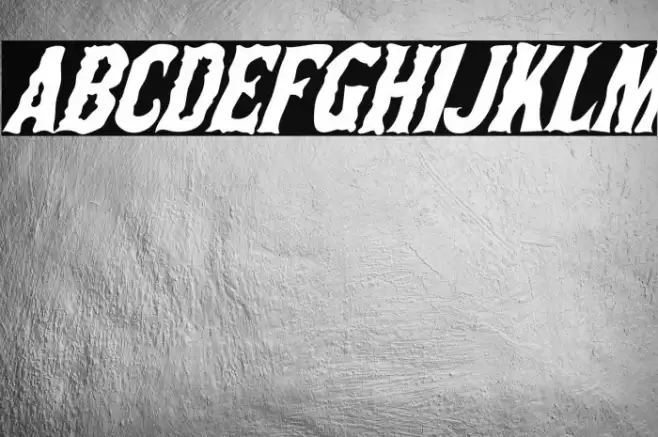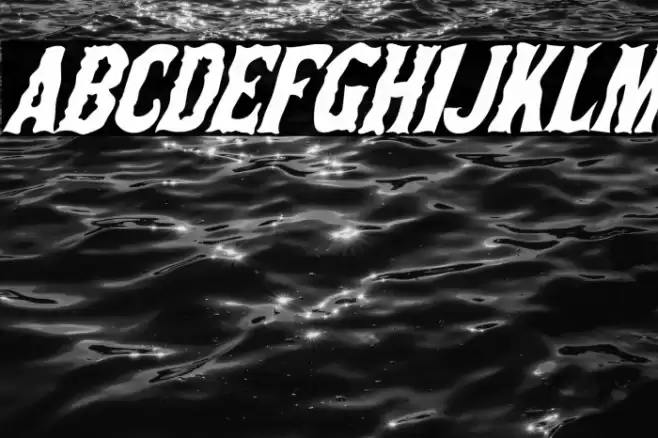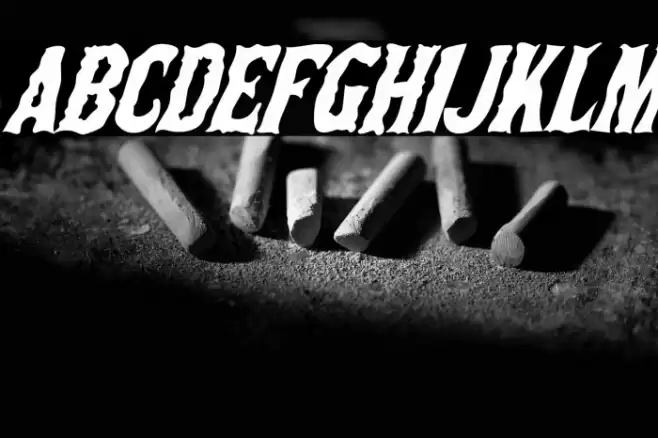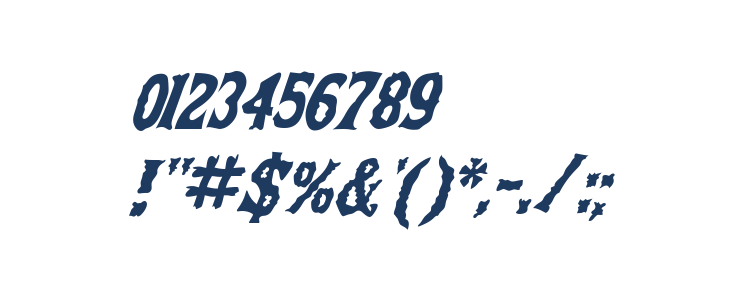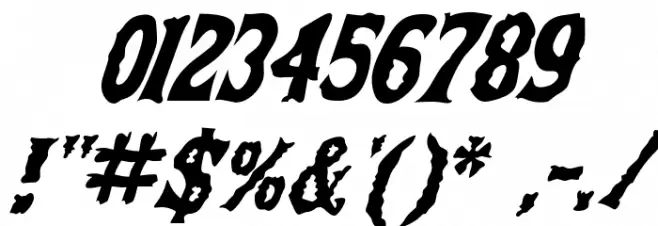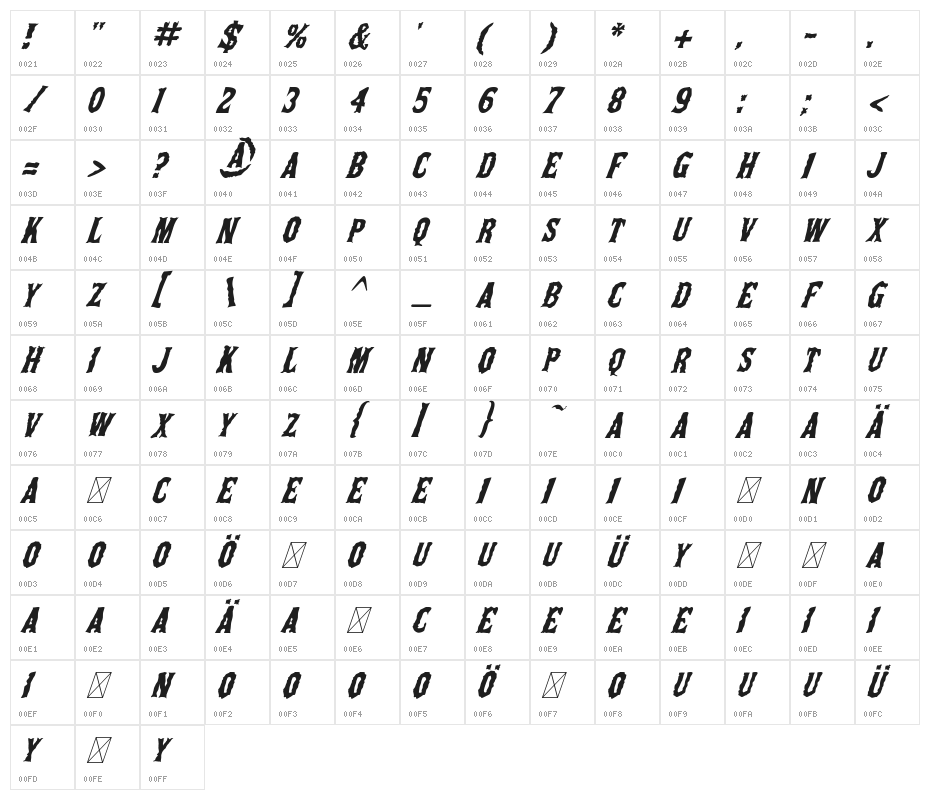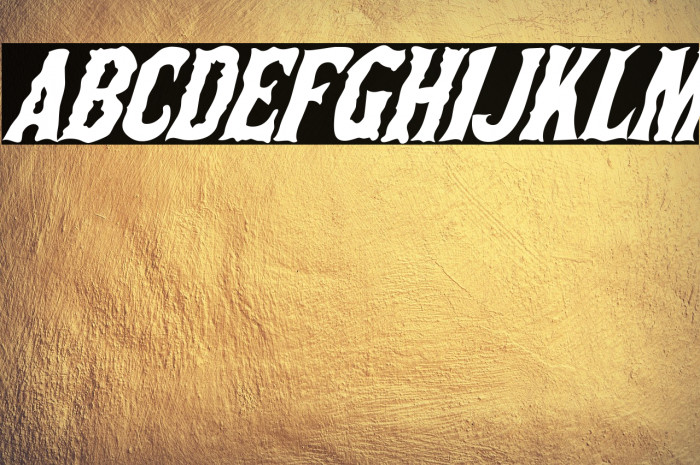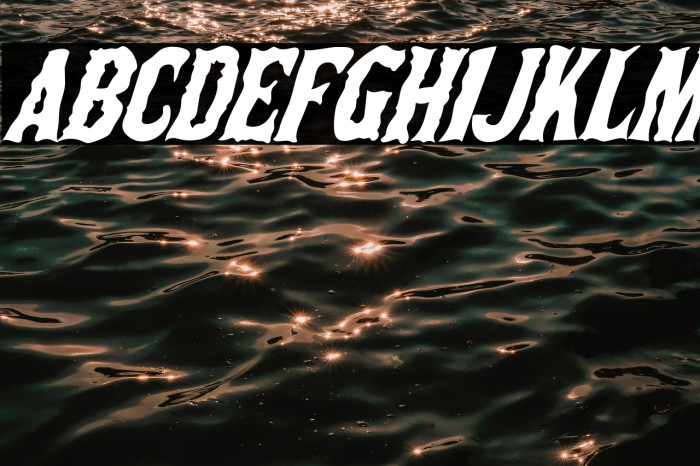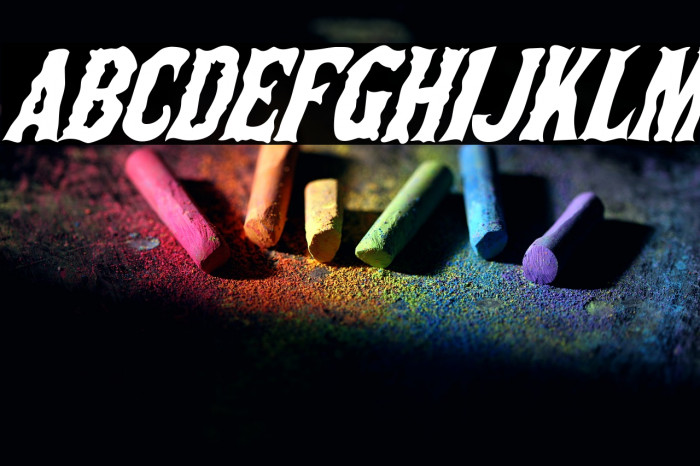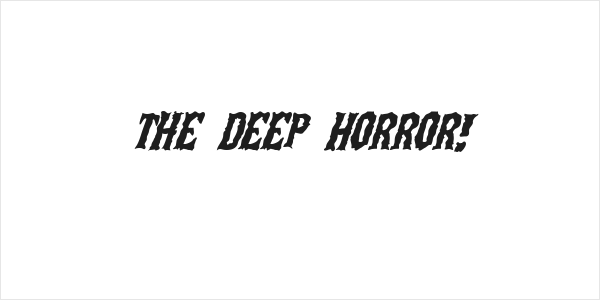
The Deep Horror! Font
The Deep Horror! Description
This font features a bold, jagged style with an eerie, horror-inspired aesthetic. The characters are irregular and appear as if they are torn or dripping, giving a sense of movement and chaos. The uppercase and lowercase letters maintain this unsettling theme, with sharp edges and uneven strokes. The numbers and special characters follow suit, enhancing the overall spooky and dramatic appearance. This font is ideal for creating a sense of fear or suspense, making it perfect for Halloween-themed projects or horror movie posters.
A bold, jagged font with a horror-inspired, eerie aesthetic from Uncategorized fonts.
- Font: The Deep Horror!
- Proposed Projects: Ideal for Halloween-themed designs, horror movie posters, haunted house flyers, or any project requiring a spooky, dramatic effect.